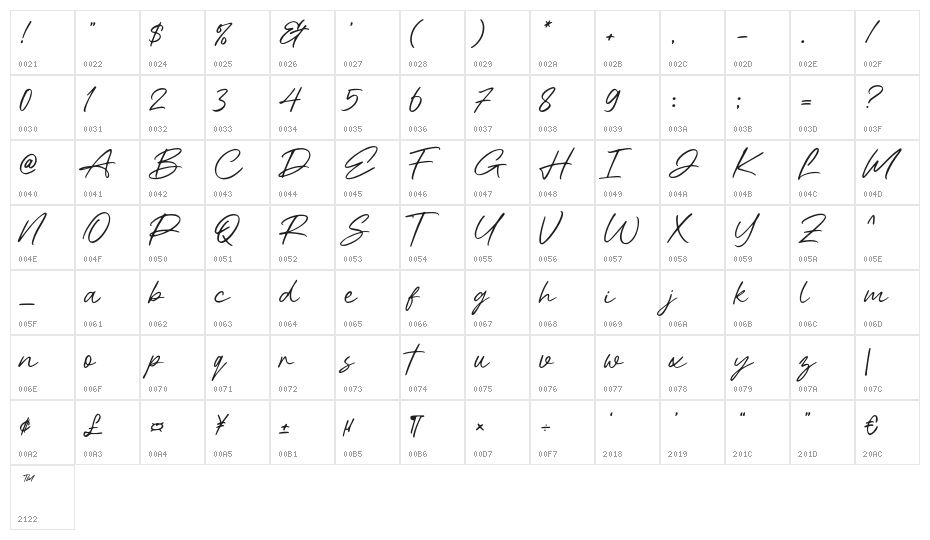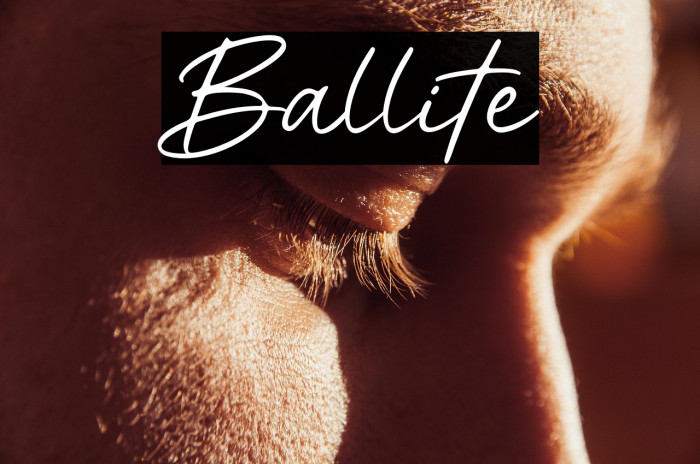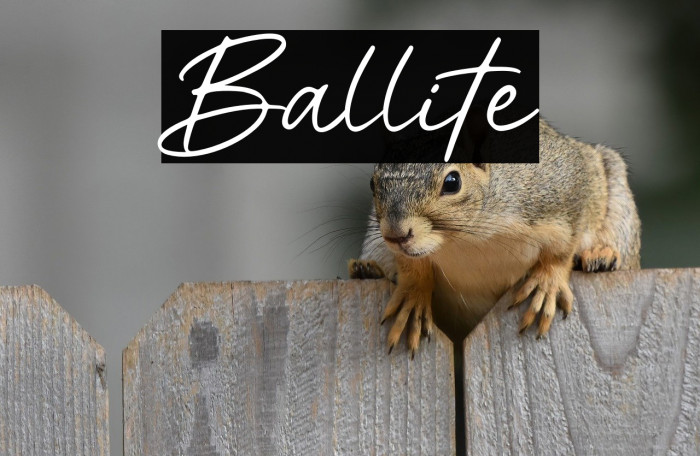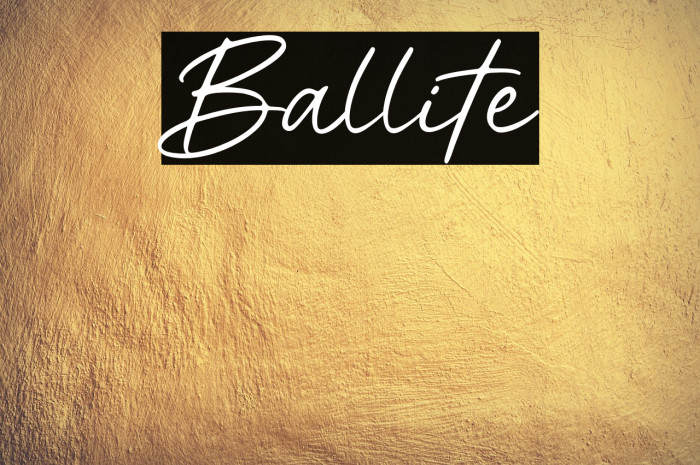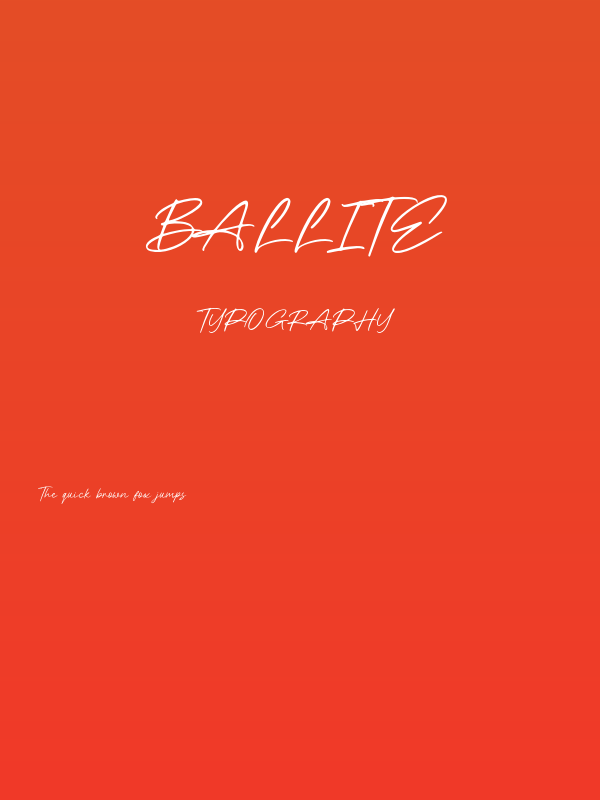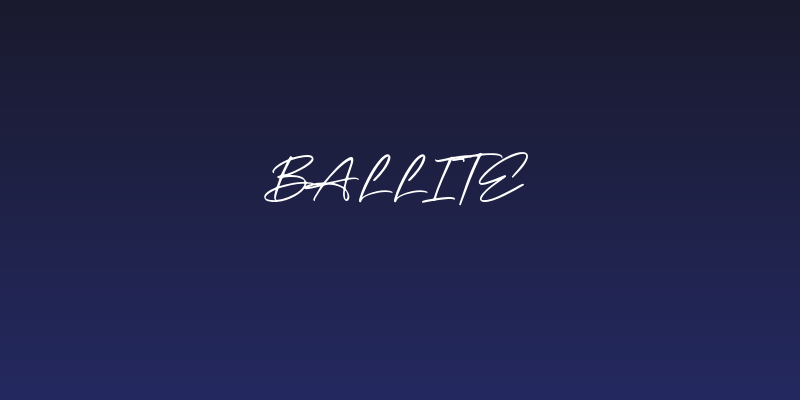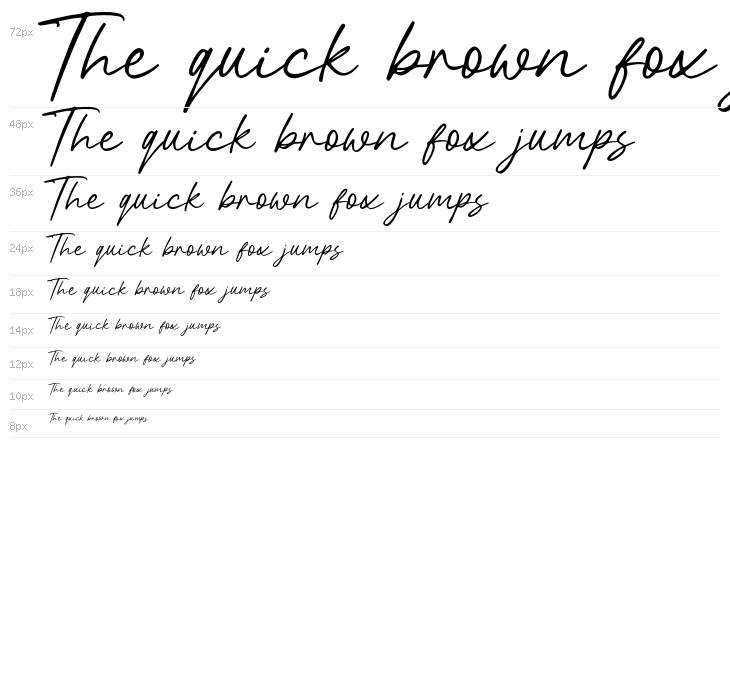
Ballite Font
Ballite Description
This font exudes a casual yet elegant handwritten style, characterized by smooth, flowing lines that mimic natural handwriting. The uppercase letters are slightly more structured, while the lowercase letters maintain a fluid, cursive appearance. The numerals and special characters are consistent with the overall style, offering a cohesive look. The strokes are moderately thick, providing a balanced contrast that enhances readability without sacrificing the font's artistic flair. This font is versatile, suitable for both formal and informal contexts, adding a personal touch to any project.
| Proposed Projects | Ideal for wedding invitations, personal branding, greeting cards, and social media graphics. |